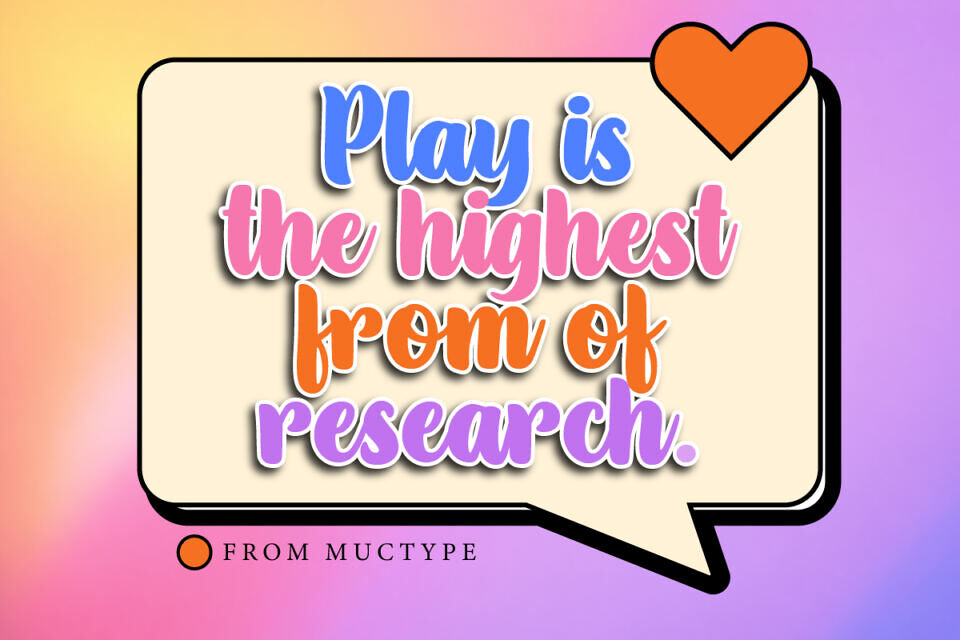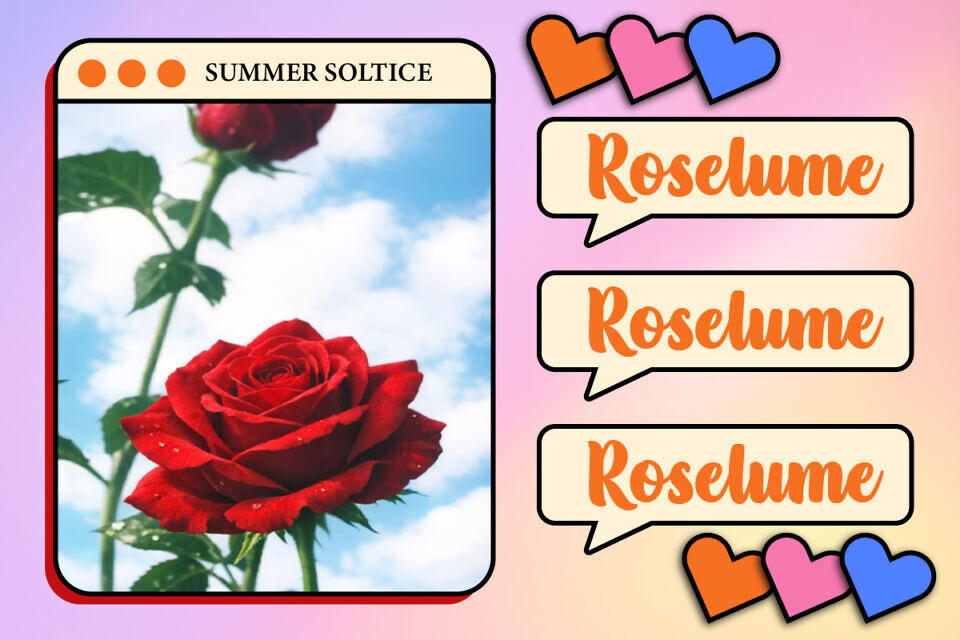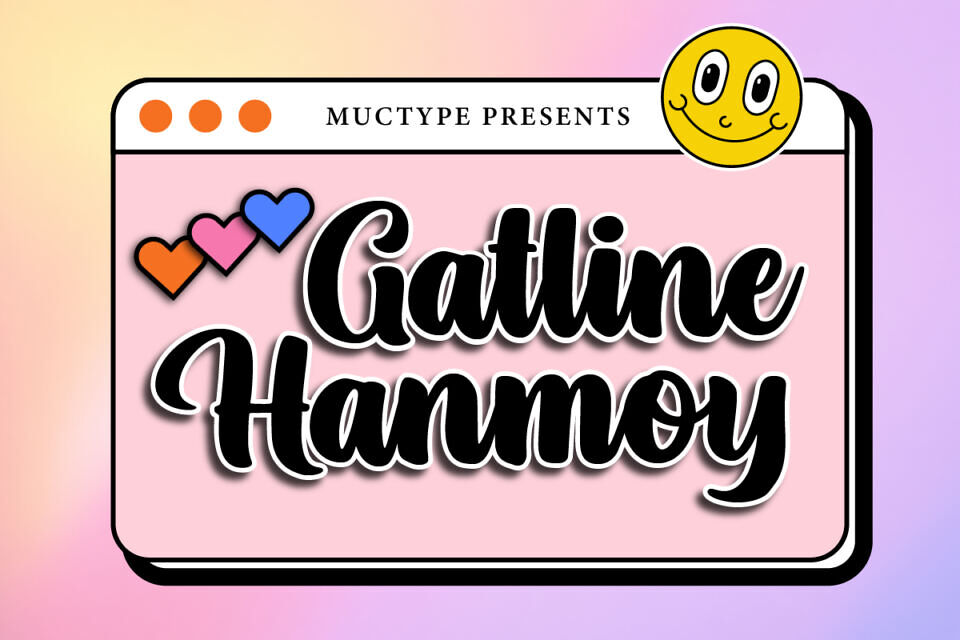
Gatline Hanmoy Font
Gatline Hanmoy is a playful bold script font designed to bring a cute, cheerful, and friendly feel to your designs. With smooth curves and rounded letterforms, this font creates a fun and eye-catching visual style.
Perfect for logo, branding, poster, social media, quotes, packaging, and creative display projects that need a sweet and modern touch.